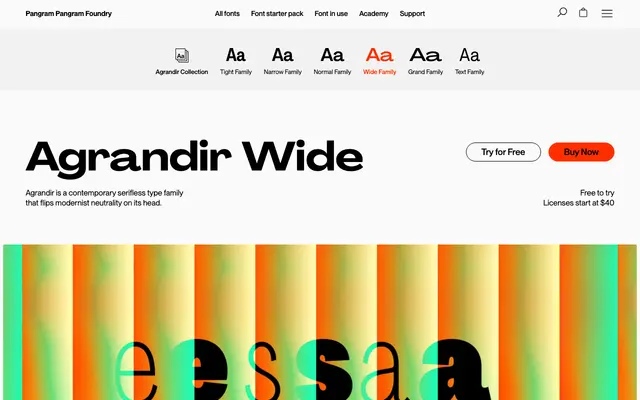
Agrandir Wide specimen from Pangram Foundry
The wide cut of Alex Slobzheninov's Agrandir, sitting between Normal and Grand in the system.
The Wide width of Agrandir by Alex Slobzheninov, drawn as a roomier sibling of Normal. Fourteen styles run from Thin to Black with italics and 443 glyphs each, carrying the family's alternates and Geometric/Grotesk presets. Useful where you want extra horizontal presence without going all the way to Grand.